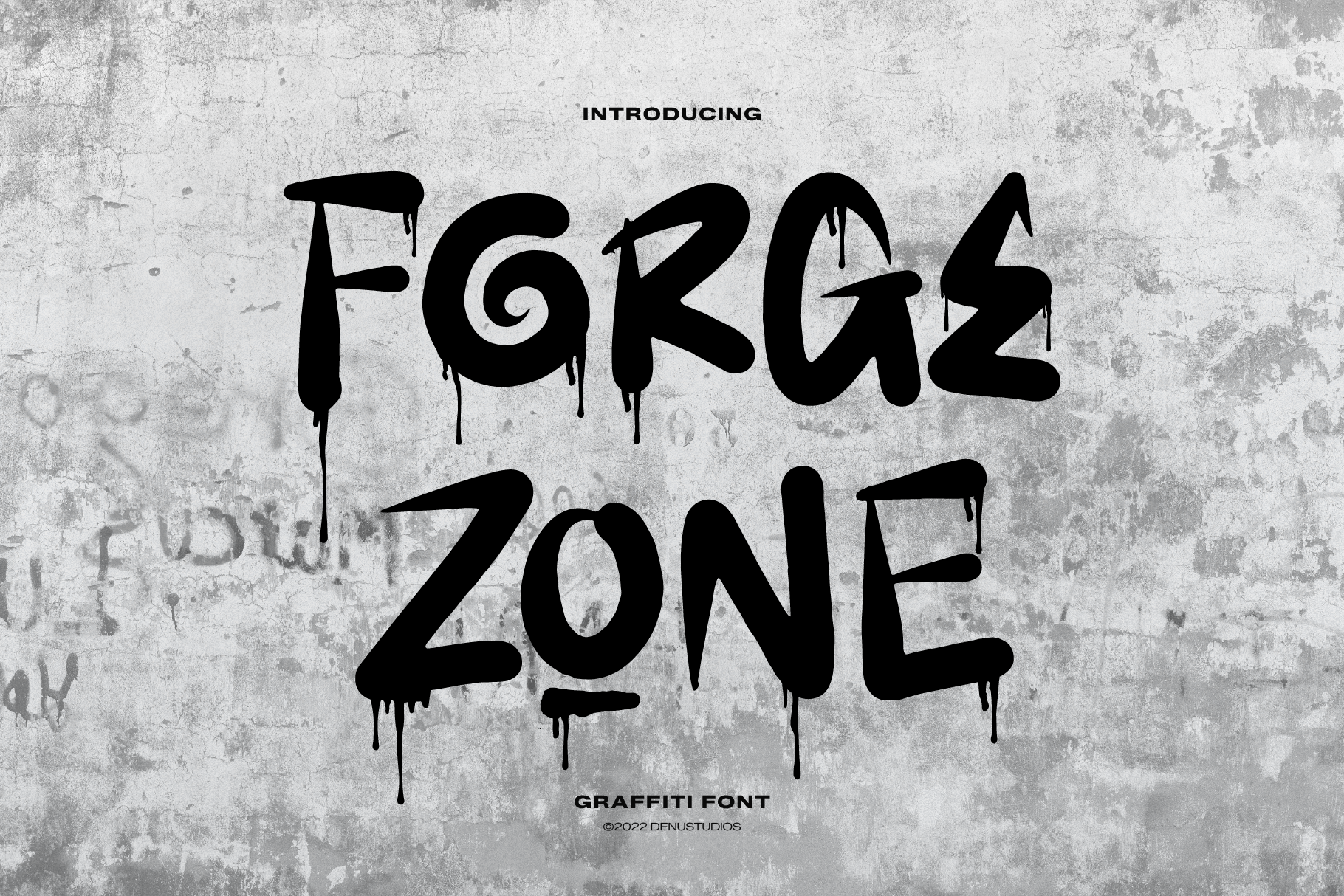
Forge Zone | Graffiti Font
Forge Zone | Graffiti Font, from Denustudios, suitable for any projects such as: logos, branding projects, homeware designs, product packaging, mugs, quotes, posters, shopping bags, t-shirts, book covers, name card, invitation cards, greeting cards, label, photography, watermark, special events, and all your other lovely projects that need a Graffiti taste.